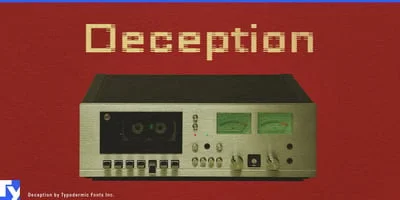
Deception Font
Deception Font is mysteriously designed for thriller book covers, mystery novel branding, suspense movie posters, escape room marketing, detective agency logos, crime documentary materials, psychological thriller campaigns, and enigmatic entertainment projects. This intriguing typeface excels in environments requiring psychological tension and mysterious appeal, making it perfect for entertainment companies, mystery writers, thriller filmmakers, and any business needing to communicate suspense and intrigue through compelling typography.
What makes Deception Font so exciting is its masterful ability to create psychological tension and visual intrigue through carefully crafted letterforms that suggest hidden meanings and concealed truths. The font features enigmatically designed characters with subtle distortions and mysterious proportions that create an immediate sense of unease and curiosity. Its psychological construction and mysterious character make it incredibly effective for brands wanting to communicate suspense, mystery, and psychological complexity while appealing to audiences who appreciate thriller narratives and enigmatic storytelling.
Deception Font typically includes multiple weights and styles such as Regular, Bold, and potentially shadowed variants with enhanced mysterious elements. The font family often features additional character sets including cryptic symbols, mystery icons, and psychological glyphs that enhance its suspenseful appeal. Each weight maintains the font's distinctive enigmatic character while offering different levels of visual tension, providing designers with comprehensive tools for creating mysterious brand identities and suspenseful communication materials.
Entertainment industry professionals will find that Deception Font delivers outstanding performance in both thriller applications and mystery marketing materials designed for suspense audiences. The font's carefully crafted character set includes mystery-appropriate letterforms, psychological symbols, and suspenseful elements essential for thriller branding, mystery publishing, and enigmatic entertainment materials. Its intriguing design makes it particularly effective for mystery novels, thriller films, escape rooms, and suspense-oriented marketing campaigns requiring authentic psychological presence.
The strategic attention to mysterious proportions and psychological spacing ensures that Deception Font maintains excellent readability while delivering maximum suspenseful impact. Its enigma-inspired design language makes it particularly effective for thriller entertainment, mystery branding, psychological marketing, and suspense applications. The font's intriguing appearance creates strong psychological connections while remaining highly functional for projects requiring clear communication to mystery enthusiasts and thriller audiences.
For designers seeking a typeface that embodies psychological mystery with suspenseful intrigue, Deception Font represents an exceptional choice that will mystify any project with its distinctive enigma and psychological character.